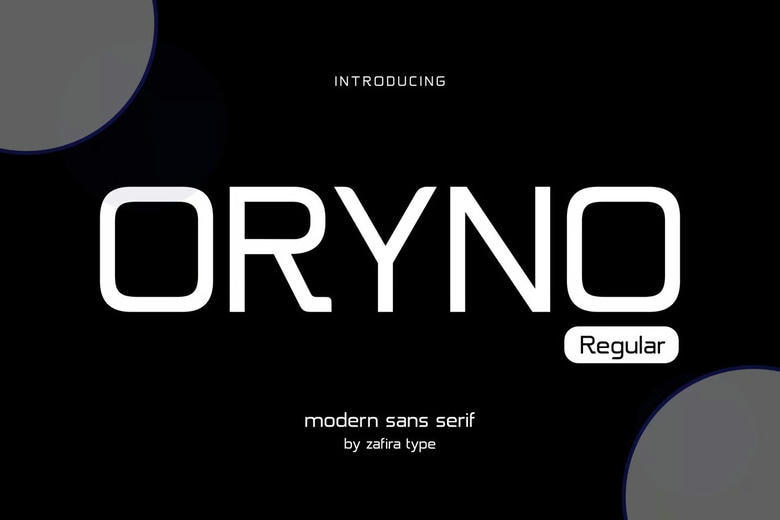
Oryno Regular Font
Oryno Regular is a modern sans-serif font made for clarity and versatility in many design settings. Its clean lines, balanced look, and fresh style make it a great option for creative projects.
Oryno Light works well for branding, editorial design, user interfaces, presentations, packaging, and both digital and print projects. It gives designs a professional, polished, and easy-to-read look, and its modern style fits many visual needs.
Oryno Regular Sans Serif Font